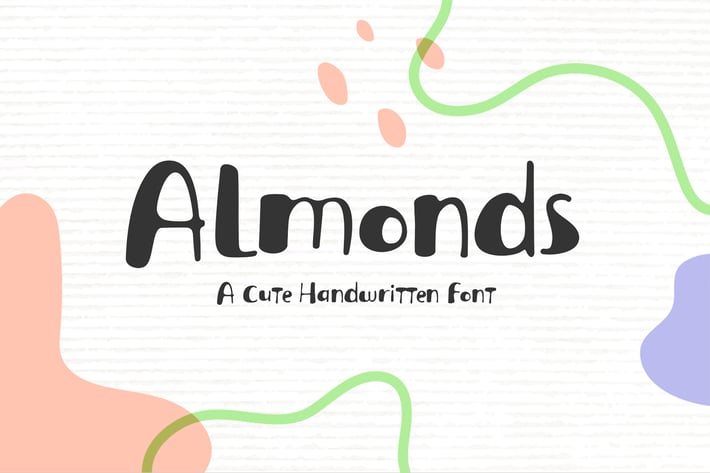
Almonds Handwritten Font
This is a new beautiful, cute and modern display font! This fun font has cute, cute, round, unique, natural and fancy font characters. Made specifically with attention to appearance, aims to give happiness to everyone who uses it!
This font is very suitable for design needs such as Cricut design, comic, logo's, branding projects, homeware designs, product packaging, mugs, quotes, posters, shopping bags, logo's, t-shirts, book covers, name card, invitation cards, greeting cards, and all your other lovely projects.